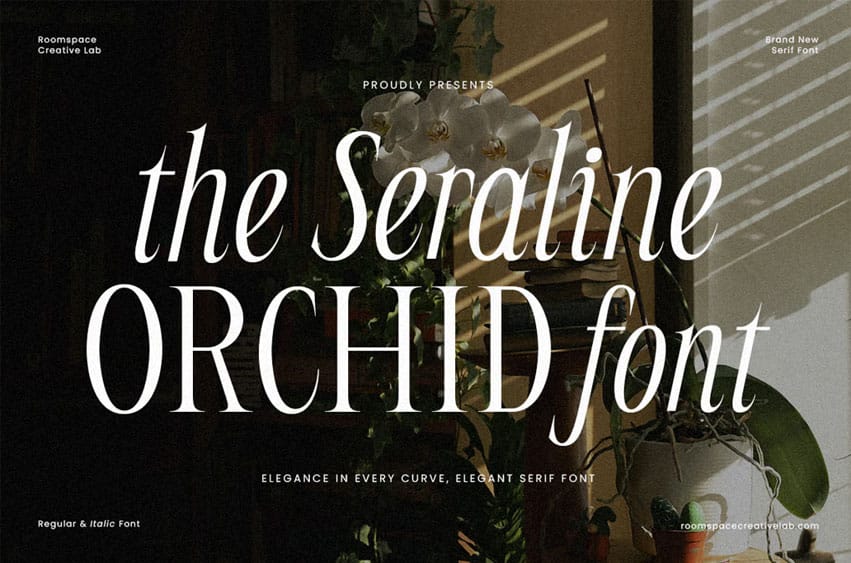
Seraline Orchid Font is a refined serif font that merges modern sophistication with graceful beauty. Designed for high-end branding, fashion editorials, and lifestyle design projects, its smooth contrast and balanced curves create a luxurious yet readable aesthetic.
- Uppercase & lowercase
- Regular & Italic styles
- Alternates & ligatures
- Elegant contrast & smooth kerning
Perfect For Luxury branding, editorial design, packaging, fashion logo, beauty ads, magazine layouts, and wedding stationery.